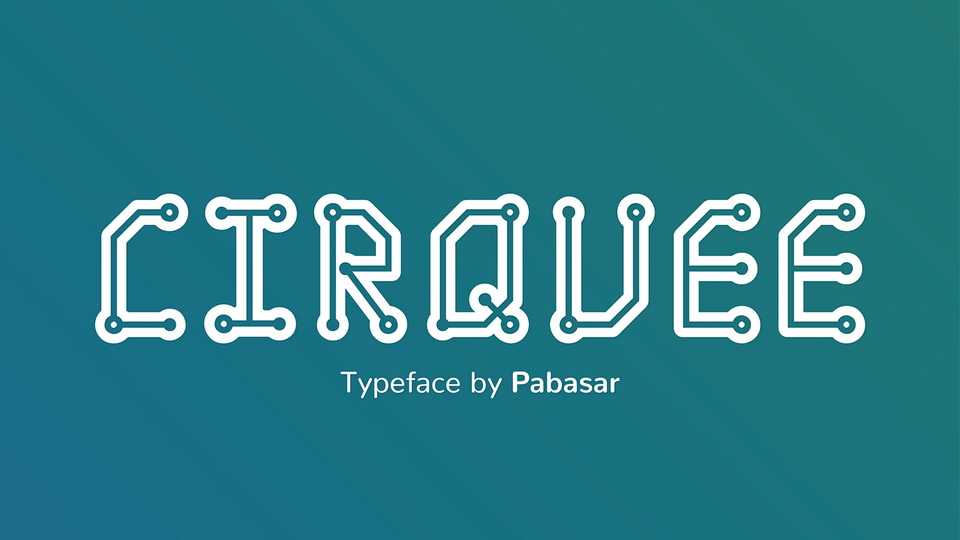
Download Cirquee font, a creative techno-style display typeface. Cirquee font perfectly fits for design of the future and technology, science, web, computer themes.
Designer: Pabasar S